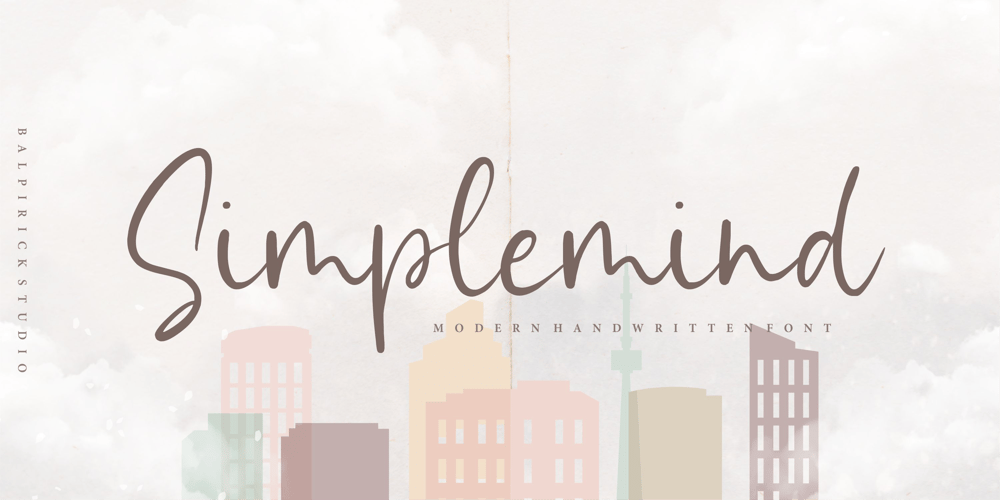
Simplemind Font Family was designed by Restu Angga and published by Balpirick. Simplemind contains 1 styles and family package options. Simplemind is a modern handwritten font.Simplemind is perfect for product packaging, branding project, magazines, social media, weddings, or just used to express words above the background. It includes multi-lingual support.